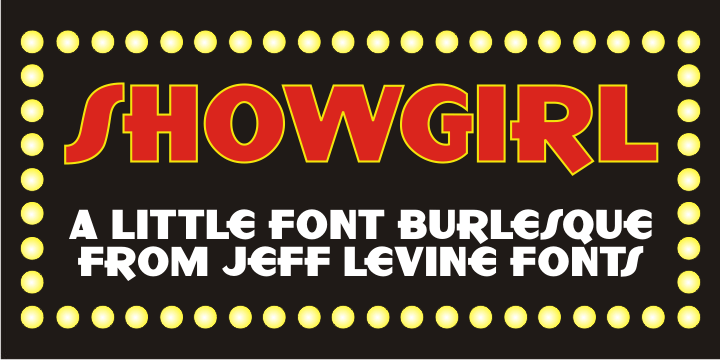
Showgirl
Showgirl JNL was inspired by a photo of a 1940s-era Minsky's Burlesque theater. The neon letters on the marquee spelling out the word 'burlesque' exuded a wonderful period look.